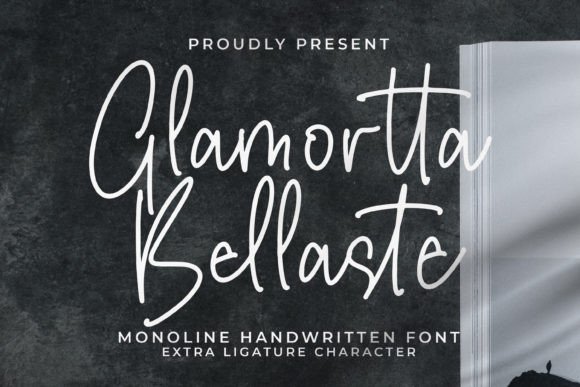
The Perfect Script for Your Next Masterpiece
Imagine you’re brainstorming ideas for your latest branding project, and you stumble upon the perfect font to capture the essence of your luxury brand. You envision a sophisticated logo, elegant packaging, and eye-catching advertisements that leave a lasting impression on your audience. This is exactly what the Glamortta Bellaste Font can help you achieve.
The Glamortta Bellaste Font is a premium Monoline Handwritten Font designed to elevate your creative projects to the next level. With its versatility and sophistication, it’s perfect for logos, branding projects, homewares designs, and so much more. Whether you’re a seasoned designer or just starting out, the Glamortta Bellaste Font is a valuable addition to your toolkit, allowing you to create stunning visuals that reflect your unique style and aesthetic.
Glamortta Bellaste Font Key Features
- Font Family: Glamortta Bellaste, Glamortta Bellaste Italic
- Unique Characteristics: Glamortta Bellaste is a high-end script font designed for luxury branding and creative projects, featuring elegant and sophisticated letterforms, swashes, and ornaments.
Glamortta Bellaste Font Review
I was excited to dive into the Glamortta Bellaste Font, with its promise of glamour and sophistication. Overall, I’d say it delivers on that promise, but with some caveats.
- Highly customizable: The Glamortta Bellaste Font offers a range of styles and weights, making it easy to find the perfect fit for your design.
- Unique flair: The font’s distinctive flair and ornaments add a touch of elegance to any design.
- Legibility: Despite its ornate nature, the font remains highly legible, even at smaller sizes.
- Limited language support: The font only supports Latin-based languages, which may limit its use for multilingual designs.
- Some font metrics may vary: Depending on the specific style and weight, the font’s metrics may not be entirely consistent, which can cause layout issues.
Overall, the Glamortta Bellaste Font is a great choice for designers looking to add a touch of glamour and sophistication to their work. While it may not be perfect, its strengths far outweigh its limitations, making it a solid addition to any design arsenal.
Getting the Most Out of Glamortta Bellaste Font
To get the most out of Glamortta Bellaste Font, use it in combination with bold or italic styles to create emphasis.
Experiment with different font sizes and colors to add visual interest to your text.
Consider pairing Glamortta Bellaste Font with other elegant or cursive fonts to create a unique and eye-catching look.
Glamortta Bellaste Font is ideal for:
The Carolyna Pro Font is a modern, elegant, and highly customizable sans-serif font. It is ideal for use in branding, logos, and other designs where a clean and sophisticated look is required. Compared to Glamortta Bellaste Font, Carolyna Pro is more geometric and less ornate, making it a better choice for modern and minimalist designs.